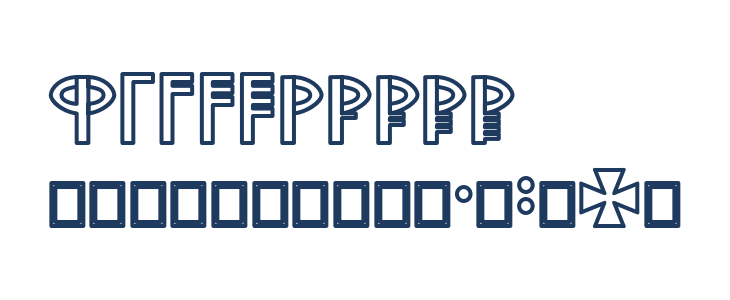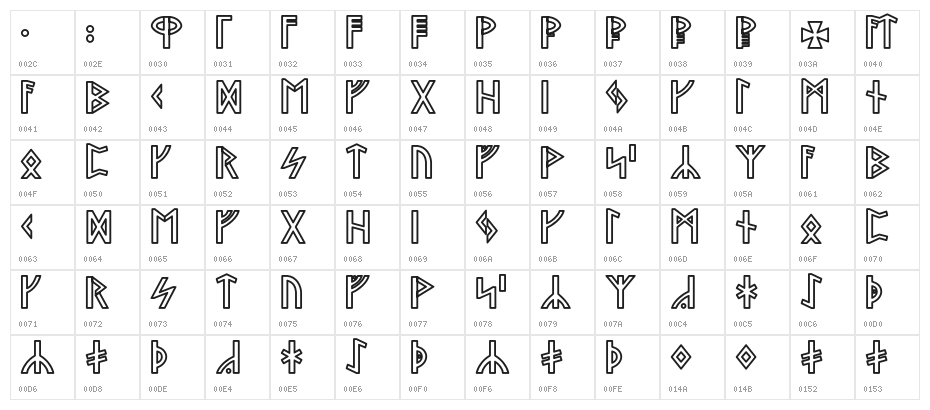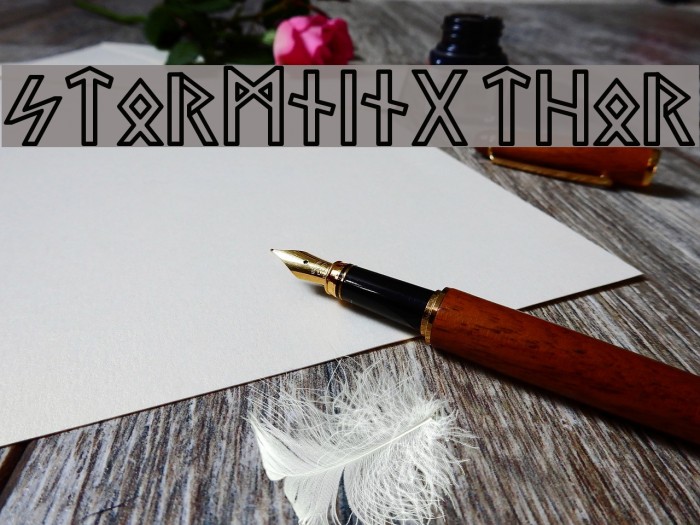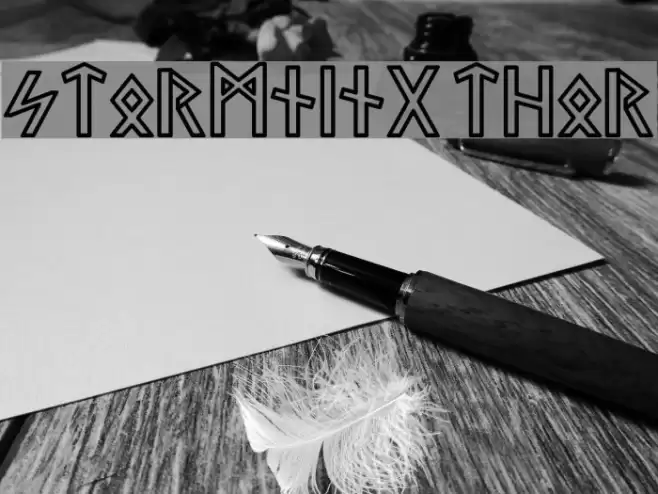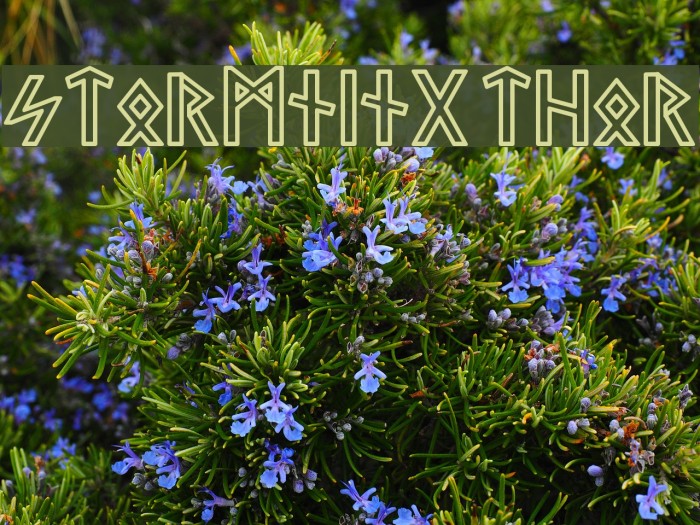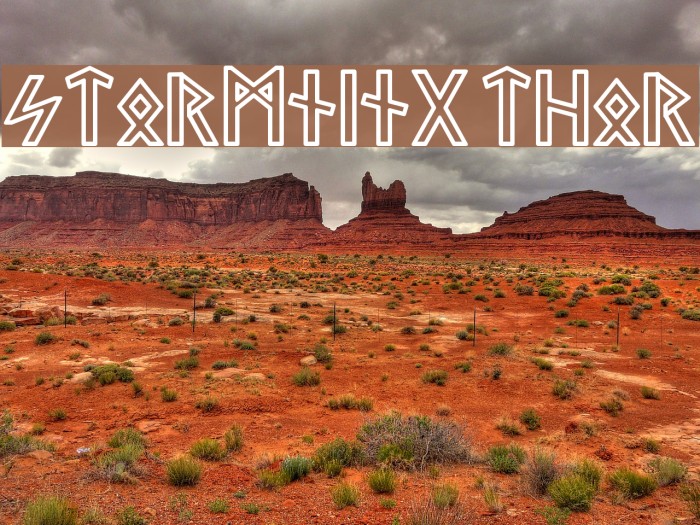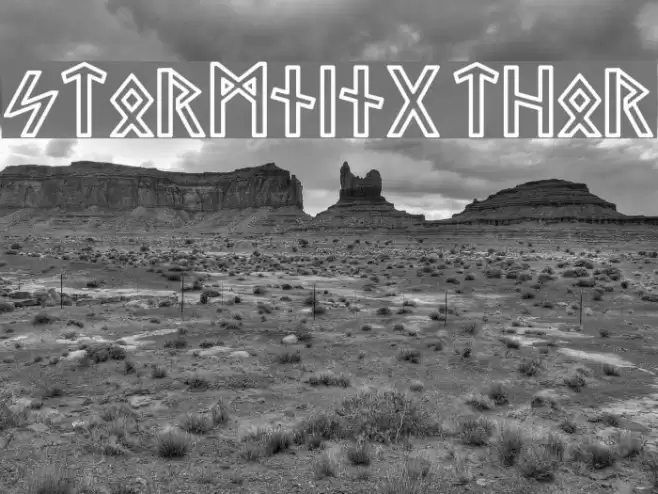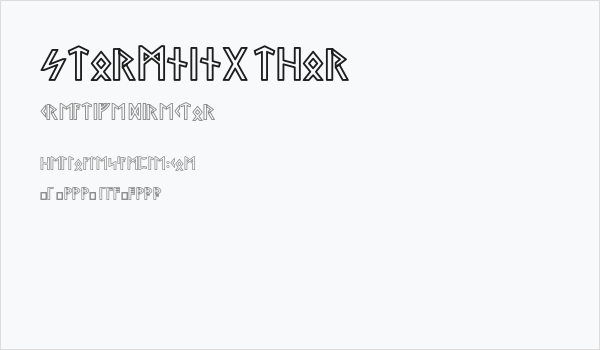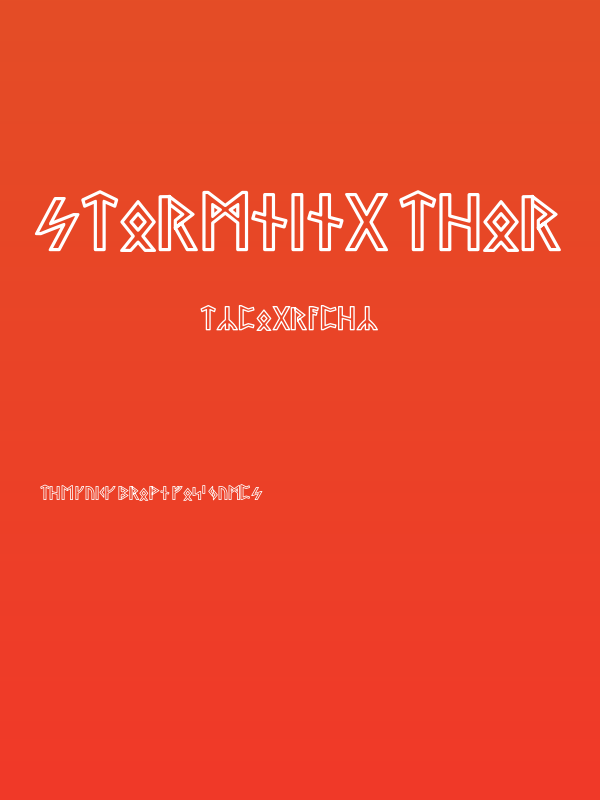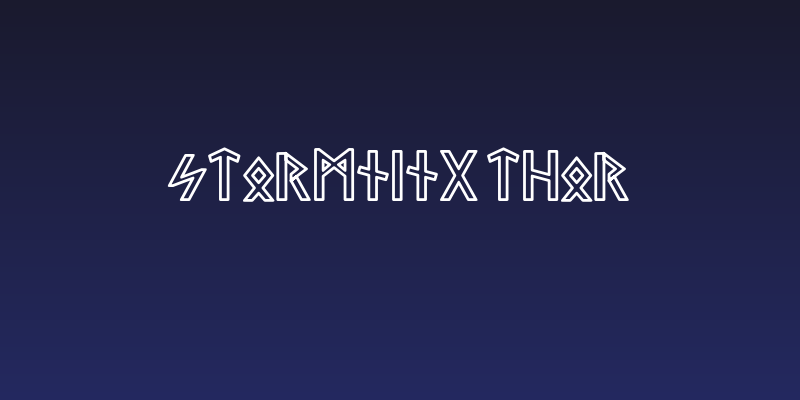
Stormning Thor Font
Stormning Thor Description
This font features a bold, angular design reminiscent of ancient runes or Norse-inspired typography. Each character is constructed with sharp, geometric lines, giving it a distinct, powerful appearance. The uppercase letters are particularly striking, with unique embellishments that enhance their visual impact. The lowercase letters maintain the same angular style, ensuring consistency throughout the typeface. Numbers and special characters are also designed with the same bold, rune-like aesthetic, making this font ideal for projects that require a strong, thematic presence.